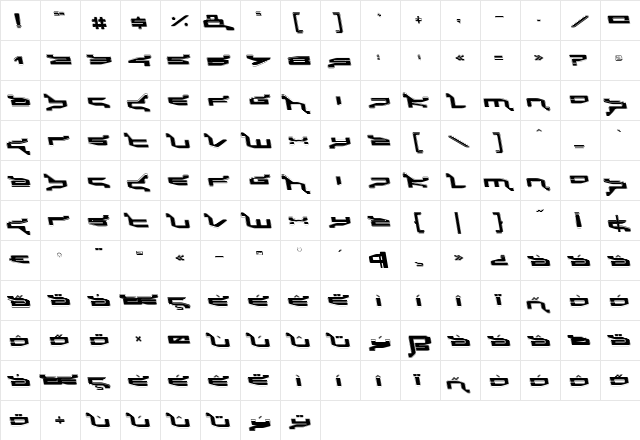
Panic Italic
Design Context for Panic Typeface
Panic is a composed and adaptable typeface that performs quietly and consistently across a wide range of design contexts. Its italic angle brings a sense of urgency and motion to the letterforms.
Pro Tip: Use Panic for emphasis, pull quotes, and subheadings where its slanted energy can add rhythm to the layout.